Diego Aravena — W Type Foundry
Call him a dreamer. Diego Aravena, 36, currently lives in Britain and studies at the University of Reading, where he’s earning a master’s degree in font design. Recently, Monotype caught up with him for an interview via Teams. Our conversation has been condensed for space.
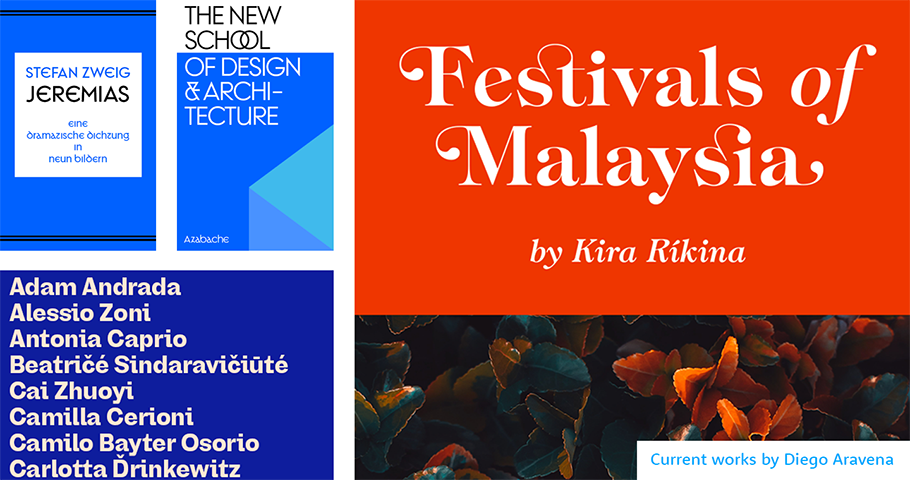
MyFonts: How did you find yourself in Britain?
Diego Aravena: Because of the twists of life, in 2018, I got a chance to study an MA programme in the UK financed by Chilean national scholarship, and it turns out I fell in love with the place due to its rich typeface culture. So then decided to start my second degree in typeface design, specifically focusing on non-Latin scripts.
MF: Why non-Latin?
DA: I believe the Western typeface industry is overcrowded with talented typeface designers, so I’m exploring Asian scripts. It’s pretty challenging, to be honest. As a foreigner, looking at all these strange shapes can be a little frightening, but I think it will be rewarding in the end. Again, I am looking to differentiate myself from others.
MF: Talk a little about your foundry, W Type. In 2012, you and your cofounders — Patricio Truenos, Bana Arasanz, and David Súid — launched it as Without Foundry. I’m curious: what’s the story behind the original name, and its change?
DA: When we opened the business, we were young and disliked hierarchy. We’d just finished our undergraduate programs but knew nothing about law, finances, or accounting. So that’s why we called it Without. Afterwards, we grew up and realized we needed some order and specific roles, so we changed the name to W Foundry. We didn’t want to lose the vibe, the brand.
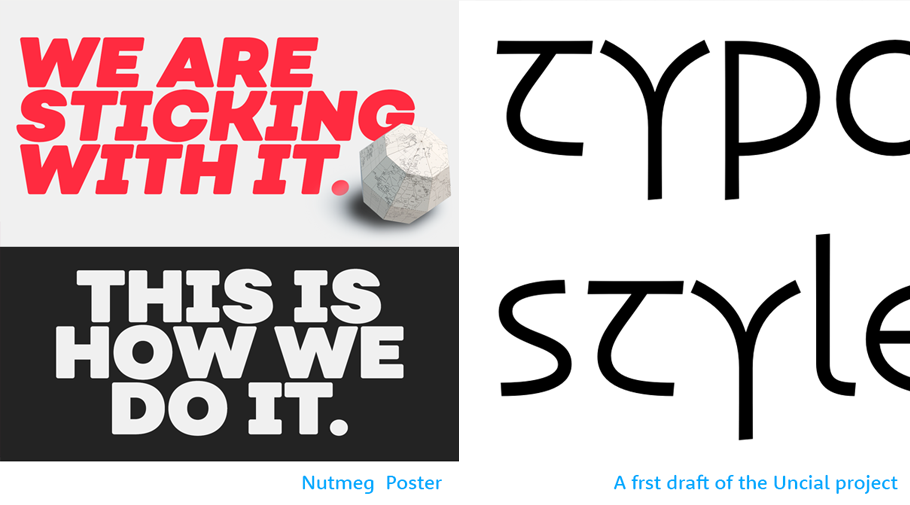
MF: What do you feel is your vibe or brand?
DA: Right now, I think we’re at a pivotal point in looking for our future. We’re already connected to academia because Patricio and I taught at graphic design schools, including the Universidad de Chile, where we were educators. But now, I don’t feel entirely comfortable with those who just teach and don’t do. So you got to walk onto the path. In other words, we are looking to be closer to business and acquire financial support to create more fonts. Maybe we’ll become a boutique foundry specializing in non-Latin scripts; that’s our aim now.
MF: As you shift to keep pace with the times, what’s your biggest income-driver?
DA: Retail — and Monotype is our biggest retailer. We sell some typefaces through MyFonts.
MF: What’s your foundry’s perspective on developing direct clients?
DA: I believe there are not that many clients in Latin America. Chile is still economically underdeveloped compared to Korea or other Asian countries. As a result, we don’t have direct clients who come and ask for a custom typeface. So, we’re still relying on retail fonts and exploring new ways to approach potential clients.
MF: Speaking of creating more typefaces: what led you to rework Medieval calligraphy?
DA: I’m interested in designing some old-style fonts. Think: “Lord of the Rings.” Those typefaces deserve a second chance because they have an aesthetic value — even though they emerged at the end of the Roman Empire and during the Dark Ages: the era of crusades, castles, conquers and violence.
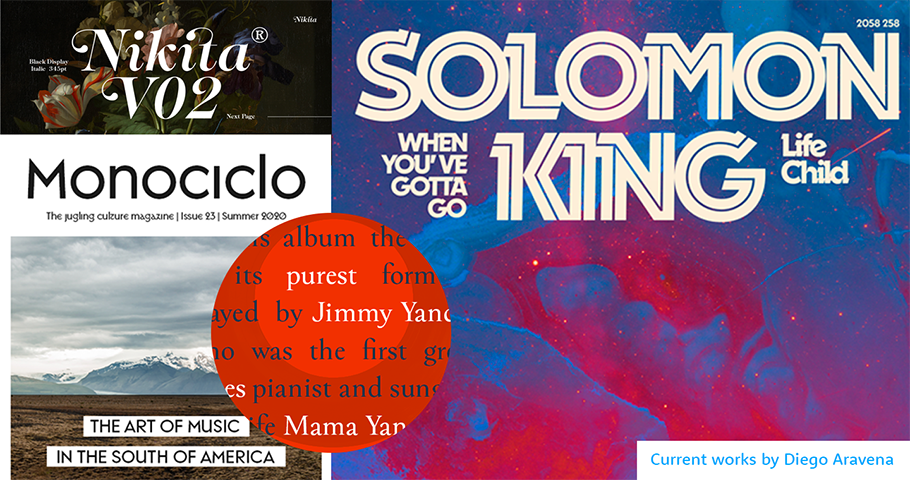
MF: You’re saying people associate Medieval typefaces with violence?
DA: I mean, I do! I’m also trying to say that typefaces developed during times of great historical stability. For instance, during the empire of Charlemagne, the Carolingian minuscules were created because he had an interest in learning. Still, looking from a broader perspective, they needed armies and warriors to maintain the kingdom’s status quo. So, these fonts have associations I don’t like. At the same time, they led to Renaissance style. People forget that. So I’m working on a project to give the old style a fresh vibe; it’s a sans serif. I want to try to make those fonts popular again.
MF: Are you talking about a revival?
DA: No, it’s not a revival because I’m doing a reinterpretation. It’s experimental, but I think it’ll work. Maybe these fonts need to be given another meaning because they are beautiful and unique! As far as history goes, they’re one of the most significant developments when it comes to typefaces, in my opinion.